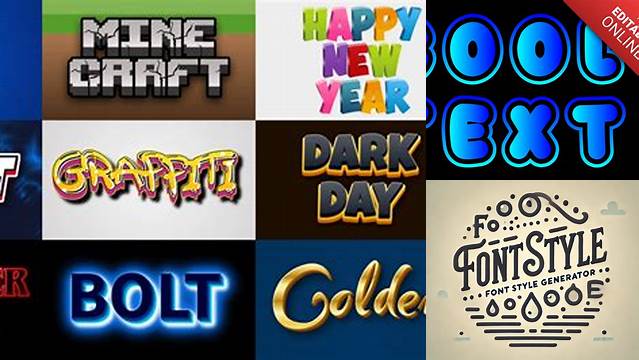
Cool Letter Styles Fonts Generator: Unleash Your Creativity!
Hey guys! Ever wanted to make your text super cool and eye-catching? You know, like those fancy fonts you see all over the internet? Well, you're in the right place! We're diving deep into the world of letter styles and fonts generators, and trust me, it's a lot more fun than it sounds. Get ready to unleash your inner artist and transform your words into works of art!
1. Understanding Different Types of Letter Styles
So, what exactly are we talking about when we say "letter styles"? Well, it's basically all the different ways you can make your text look. We're not just talking about basic Arial or Times New Roman here; we're talking about bold, italic, script, sans-serif, serif, and a whole bunch more! Understanding these different styles is the first step in becoming a font master. Think of it like this: each style has its own personality. Some are elegant and formal, others are playful and fun, and some are just plain bold and attention-grabbing.
For example, serif fonts, like Times New Roman, have those little "feet" at the end of the letters, giving them a classic and traditional feel. They're great for formal documents, books, and anything that needs a touch of sophistication. On the other hand, sans-serif fonts, like Arial or Helvetica, are cleaner and more modern, making them perfect for websites, presentations, and designs that need a contemporary vibe. But the real fun begins when you start exploring script fonts, which mimic handwriting, or display fonts, which are designed to be unique and eye-catching. Each letter style brings its own flavor to the table, so understanding their nuances can help you choose the perfect font for any occasion.
The choice of letter style can dramatically impact the message conveyed by your text. Imagine using a playful, bubbly font for a serious legal document – it just wouldn't work, right? Similarly, a formal, serif font might feel out of place on a fun, quirky website. By understanding the different letter styles, you can ensure that your text not only looks good but also effectively communicates your intended message. Think about the overall tone and feeling you want to create, and then choose a font that aligns with that vision. Experiment with different styles and combinations to find what works best for your project. Don't be afraid to mix and match, but always keep readability and clarity in mind. After all, the most beautiful font is useless if no one can read it!
2. Exploring Font Generators: How They Work
Okay, now that we've got the basics of letter styles down, let's talk about font generators! These are the magic tools that let you transform your plain text into all sorts of cool and crazy styles. But how do they actually work? Well, most font generators use Unicode characters. Unicode is a universal character encoding standard that assigns a unique number to each character, including letters, numbers, symbols, and even emojis! So, when you type in your text and choose a fancy font, the generator is actually mapping your regular letters to different Unicode characters that look like the style you've chosen.
This is why you can copy and paste these generated fonts into social media, messaging apps, and other places that don't normally support custom fonts. The platform just sees the Unicode characters and displays them accordingly. Pretty neat, huh? There are tons of different font generators out there, each with its own set of styles and features. Some are super simple and straightforward, while others offer more advanced customization options. You can find generators that create everything from elegant cursive scripts to futuristic glitchy text. It's like having a whole font library at your fingertips, ready to be used for your next project!
When choosing a font generator, consider your specific needs and preferences. Do you need a wide variety of styles, or are you looking for something more specific? Do you prefer a simple interface, or do you want more control over the customization process? Some generators also offer additional features, such as the ability to create custom symbols or combine different styles. The key is to experiment and find a generator that fits your workflow and helps you achieve the desired look for your text. Remember to always check the terms of use and compatibility of the generated fonts, especially if you plan to use them for commercial purposes. With a little exploration, you'll discover a world of creative possibilities and find the perfect font generator to bring your ideas to life.
3. Using Font Generators for Social Media
Social media is where these letter styles fonts generator really shine! Think about it: your posts are competing with thousands of others for attention. A cool font can help you stand out from the crowd and grab those eyeballs. Whether you're crafting a catchy caption for Instagram, writing a witty tweet, or designing a stunning Facebook post, a unique font can make all the difference. Imagine using a bold, eye-catching font for a promotional announcement, a delicate script for a heartfelt message, or a playful font for a fun contest. The possibilities are endless!
But it's not just about aesthetics. The right font can also help you reinforce your brand identity and communicate your message more effectively. Consistent use of specific fonts across your social media profiles can create a cohesive and professional look, making your brand more recognizable and memorable. Think of it like your brand's visual voice – the fonts you choose can convey personality, tone, and values. A modern, sans-serif font might suggest innovation and simplicity, while a classic serif font could evoke tradition and trustworthiness. By carefully selecting fonts that align with your brand's identity, you can strengthen your message and create a lasting impression on your audience.
However, it's crucial to use fonts wisely on social media. While a unique font can grab attention, readability should always be a top priority. Avoid fonts that are too intricate or distorted, as they can be difficult to read on smaller screens. Also, be mindful of platform compatibility – not all fonts are displayed correctly on all devices and browsers. It's a good idea to test your text on different platforms to ensure it looks the way you intend. Remember, the goal is to enhance your message, not obscure it. With a little creativity and attention to detail, you can leverage font generators to create social media content that is both visually appealing and highly effective.
4. Creating Eye-Catching Headlines with Font Generators
Headlines are everything, guys! They're the first thing people see, and they determine whether someone will click on your content or scroll right past it. So, naturally, you want your headlines to be as eye-catching as possible. Font generators can be your secret weapon here. Imagine crafting headlines that practically jump off the page, demanding attention and enticing readers to dive deeper. Whether you're writing blog posts, creating marketing materials, or designing website headers, a well-chosen font can transform a dull headline into a captivating one.
But creating eye-catching headlines is more than just choosing a fancy font. It's about strategically using font styles to emphasize key words and create a visual hierarchy. Think about using a bold font for the main message, a contrasting font for a sub-headline, or an italic font for a call to action. The goal is to guide the reader's eye and highlight the most important information. Experiment with different font sizes, weights, and colors to create a dynamic and engaging headline that grabs attention and conveys the essence of your content. For example, a bold and impactful font might be perfect for announcing a major product launch, while a more elegant and refined font could be ideal for a lifestyle blog post.
When using font generators for headlines, consider the overall design and branding of your project. The fonts you choose should complement the existing visual elements and align with your brand's identity. Avoid using too many different fonts in a single headline, as this can create a cluttered and confusing look. Stick to a maximum of two or three fonts and use them strategically to create emphasis and visual interest. Also, remember that readability is crucial, especially for headlines. Choose fonts that are clear and easy to read, even at a glance. With a little creativity and attention to detail, you can use font generators to craft headlines that not only grab attention but also effectively communicate your message and drive engagement.
5. Designing Logos with Unique Letter Styles
Your logo is the face of your brand, so it needs to be memorable and unique. And guess what? Letter styles play a huge role in logo design! Think about some of the most iconic logos out there: Coca-Cola's cursive script, Google's playful sans-serif, or IBM's bold, geometric letters. Each of these logos uses fonts to convey a specific brand personality and create a lasting impression. With font generators, you can explore a wide range of letter styles and find the perfect one to represent your brand. Imagine crafting a logo that perfectly captures the essence of your business, whether it's modern and innovative, classic and elegant, or fun and quirky.
The choice of letter style in a logo can communicate a lot about your brand's values and target audience. A clean, sans-serif font might suggest a modern and tech-savvy company, while a handwritten script font could convey a more personal and artisanal brand. A bold, geometric font might be ideal for a company that wants to project strength and reliability, while a playful, rounded font could be a good fit for a brand that targets children or creative individuals. Consider the overall message you want to send and choose fonts that align with that vision. Experiment with different styles and combinations to find a unique and memorable look that sets your brand apart.
When designing logos with letter styles, simplicity and scalability are key considerations. A logo should be easily recognizable and legible, even at small sizes. Avoid fonts that are too intricate or distorted, as they can lose their clarity when scaled down. Also, think about how the logo will look in different contexts, such as on a website, business cards, or merchandise. A versatile logo should work well across all platforms and media. Don't be afraid to experiment with custom fonts or modify existing ones to create a truly unique and distinctive logo. With the right letter styles and a creative approach, you can design a logo that not only looks great but also effectively represents your brand and resonates with your target audience.
6. Enhancing Presentations with Stylish Fonts
Let's face it: presentations can be boring. But they don't have to be! One of the easiest ways to make your presentations more engaging is to use stylish fonts. Think about it: a presentation filled with plain, default fonts is going to look pretty bland. But when you use carefully chosen fonts, you can add personality, emphasis, and visual interest, transforming your slides from snooze-worthy to attention-grabbing. Imagine using a bold, modern font for your headlines, a clean and readable font for your body text, and a subtle script font for your quotes. The right combination of fonts can create a visually appealing and dynamic presentation that keeps your audience engaged.
The fonts you choose for your presentation can also help you communicate your message more effectively. Different fonts evoke different emotions and associations, so you can use them to reinforce your key points and create the desired tone. For example, a strong, impactful font might be perfect for emphasizing important statistics or calls to action, while a more elegant and refined font could be used for introducing a new concept or idea. Think about the overall feeling you want to create and choose fonts that align with that vision. Consider using contrasting font styles to create a visual hierarchy and guide your audience's eye through the slides.
When enhancing presentations with fonts, readability is paramount. Choose fonts that are clear and easy to read, even at a distance. Avoid fonts that are too decorative or distorted, as they can be difficult to decipher on a large screen. Also, be mindful of font size and spacing to ensure that your text is legible and well-balanced. Use a limited number of fonts (ideally two or three) to maintain consistency and avoid visual clutter. Before your presentation, always test your slides on the projector or screen you'll be using to ensure that the fonts display correctly. With a little attention to detail, you can use stylish fonts to elevate your presentations and make a lasting impression on your audience.
7. Generating Calligraphy-Style Letters
Calligraphy is beautiful, isn't it? It's like writing as an art form! But not everyone has the skills to create those elegant strokes by hand. That's where font generators come in! You can use them to create text that looks like calligraphy, even if you don't have a calligraphy pen. Imagine designing invitations, thank-you notes, or even just adding a touch of elegance to your website with calligraphy-style letters. Whether you're planning a wedding, celebrating a special occasion, or simply want to add a touch of sophistication to your projects, calligraphy fonts can bring a sense of artistry and grace to your designs.
Calligraphy-style fonts capture the beauty and fluidity of traditional handwriting, often featuring elegant curves, flourishes, and varying stroke widths. These fonts can range from classic and formal scripts to more modern and whimsical interpretations of calligraphy. When choosing a calligraphy font, consider the overall tone and style of your project. A formal, traditional script might be perfect for wedding invitations or certificates, while a more relaxed and flowing script could be ideal for greeting cards or personal stationery. Think about the readability of the font as well, especially for longer passages of text. Some calligraphy fonts can be quite intricate, so it's important to choose one that is easy to read at the intended size and in the context of your design.
When generating calligraphy-style letters, consider experimenting with different font weights, sizes, and colors to achieve the desired effect. You can also use kerning and tracking adjustments to fine-tune the spacing between letters and create a more balanced and harmonious look. If you're using calligraphy fonts for print projects, be sure to choose high-quality fonts that will render well on paper. For digital projects, consider using web-safe calligraphy fonts that will display correctly across different browsers and devices. With a little practice and experimentation, you can use font generators to create stunning calligraphy-style text that adds a touch of elegance and sophistication to any project.
8. Creating Graffiti-Style Fonts Online
Want to add some street style to your designs? Graffiti fonts are the way to go! These fonts capture the bold, edgy, and expressive nature of street art. And with font generators, you can easily create graffiti-style fonts online, even if you've never picked up a spray can in your life! Imagine designing posters, flyers, or even social media graphics with a gritty, urban vibe. Whether you're promoting a music event, designing a website for a streetwear brand, or simply want to add a touch of rebellious flair to your projects, graffiti fonts can make a statement and grab attention.
Graffiti fonts are characterized by their bold, irregular shapes, textured surfaces, and often overlapping or distorted letterforms. These fonts can range from simple and blocky styles to more elaborate and intricate designs, mimicking the diverse range of graffiti art found in urban environments. When choosing a graffiti font, consider the overall message and aesthetic you want to convey. A bold and aggressive font might be perfect for a protest poster or a music event flyer, while a more stylized and artistic font could be ideal for a graphic design project or a website header. Think about the legibility of the font as well, especially for longer passages of text. Some graffiti fonts can be quite stylized, so it's important to choose one that is still readable in the context of your design.
When creating graffiti-style fonts online, consider experimenting with different font colors, outlines, and effects to enhance the visual impact. You can also add textures, shadows, and other graphic elements to create a more authentic graffiti look. If you're using graffiti fonts for digital projects, be sure to choose fonts that are web-safe and will display correctly across different browsers and devices. For print projects, consider using high-quality fonts that will render well on paper. With a little creativity and experimentation, you can use font generators to create graffiti-style text that adds an urban edge and visual excitement to any project.
9. Generating Cursive Letter Styles
Cursive fonts are all about flow and elegance. They mimic the look of handwriting, adding a personal and sophisticated touch to your designs. And with font generators, it's super easy to generate cursive letter styles for all sorts of projects! Imagine creating beautiful invitations, heartfelt thank-you notes, or even adding a touch of charm to your website with cursive text. Whether you're planning a wedding, designing a greeting card, or simply want to add a touch of handwritten flair to your projects, cursive fonts can bring a sense of warmth and personality to your designs.
Cursive fonts are characterized by their flowing letterforms, connecting strokes, and graceful curves. These fonts can range from formal and traditional scripts to more casual and contemporary styles, offering a wide range of options to suit different tastes and projects. When choosing a cursive font, consider the overall tone and style you want to convey. A formal script might be perfect for wedding invitations or certificates, while a more relaxed and flowing cursive could be ideal for personal correspondence or blog posts. Think about the readability of the font as well, especially for longer passages of text. Some cursive fonts can be quite intricate, so it's important to choose one that is easy to read at the intended size and in the context of your design.
When generating cursive letter styles, consider experimenting with different font weights, sizes, and colors to achieve the desired effect. You can also use kerning and tracking adjustments to fine-tune the spacing between letters and create a more balanced and harmonious look. If you're using cursive fonts for print projects, be sure to choose high-quality fonts that will render well on paper. For digital projects, consider using web-safe cursive fonts that will display correctly across different browsers and devices. With a little practice and experimentation, you can use font generators to create stunning cursive text that adds a personal touch and visual elegance to any project.
10. Using Font Generators for T-Shirt Designs
Want to create a custom t-shirt that really stands out? The font you choose can make all the difference! Font generators are a fantastic tool for finding the perfect font for your t-shirt design. Think about it: a cool font can take your message from ordinary to extraordinary, adding personality, style, and impact. Imagine designing a t-shirt with a bold, graphic font that screams attitude, a playful, hand-drawn font that exudes fun, or a sleek, modern font that conveys sophistication. Whether you're creating t-shirts for your business, a special event, or just for fun, the right font can make your design truly unique and memorable.
The fonts you choose for your t-shirt design should not only look good but also be legible and appropriate for the intended audience and message. Consider the overall style and tone you want to convey and choose fonts that align with that vision. A bold and impactful font might be perfect for a sports team t-shirt, while a more elegant and refined font could be used for a charity event t-shirt. Think about the placement of the text on the t-shirt and choose fonts that will fit well within the design. Consider using contrasting font styles to create a visual hierarchy and emphasize key words or phrases.
When using font generators for t-shirt designs, make sure to choose fonts that are compatible with the printing process you'll be using. Some fonts may not render well when printed on fabric, so it's important to test your design before printing a large batch of t-shirts. Also, be mindful of copyright restrictions and ensure that you have the necessary rights to use the fonts you choose for commercial purposes. With a little planning and attention to detail, you can use font generators to create t-shirt designs that are both visually appealing and highly effective in communicating your message.
11. Finding Unique Fonts for Invitations
12. Creating Fancy Text for Banners
13. Designing Website Headers with Font Generators
14. Generating Gothic Letter Styles
15. Using Font Generators for Posters
16. Creating Retro Fonts Online
17. Generating Bubble Letter Styles
18. Using Font Generators for Business Cards
19. Creating Futuristic Fonts Online
20. Generating Distorted Letter Styles
21. Using Font Generators for Certificates
22. Creating Handwritten Letter Styles
23. Generating 3D Letter Styles
24. Using Font Generators for Book Covers
25. Creating Pixel Fonts Online